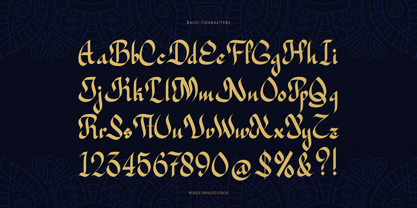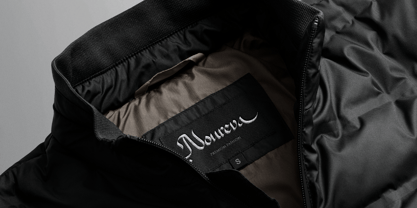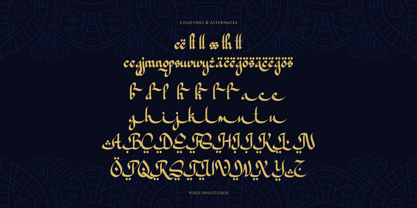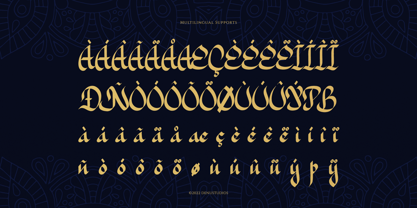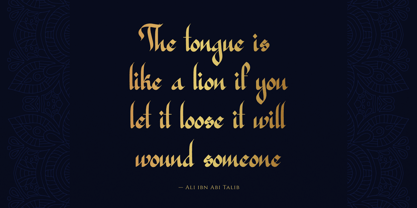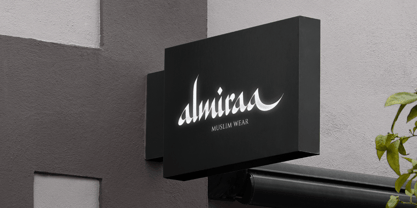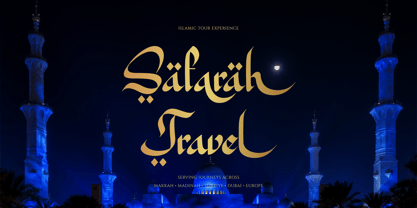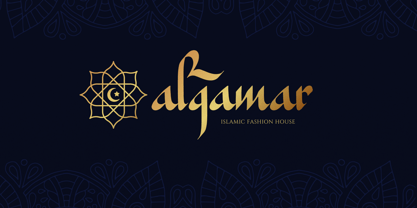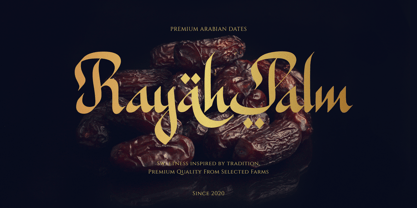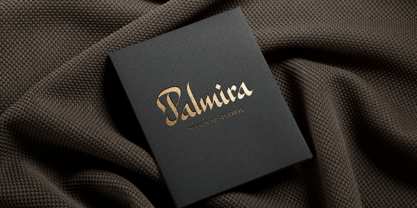
Arabian Mandala
by Denustudio
The Arabian Mandala Font Family was designed by Dede Nugraha and published by Denustudio. Arabian Mandala contains 1 styles. More about this family
Arabian Mandala | Blackletter Arabic Font, from Denustudios, suitable for any projects such as: logos, branding projects, homeware designs, product packaging, mugs, quotes, posters, shopping bags, t-shirts, book covers, name card, invitation cards, greeting cards, label, photography, watermark, special events, and all your other lovely projects that need Arabic a taste.
Designers: Dede Nugraha
Foundry: Denustudio